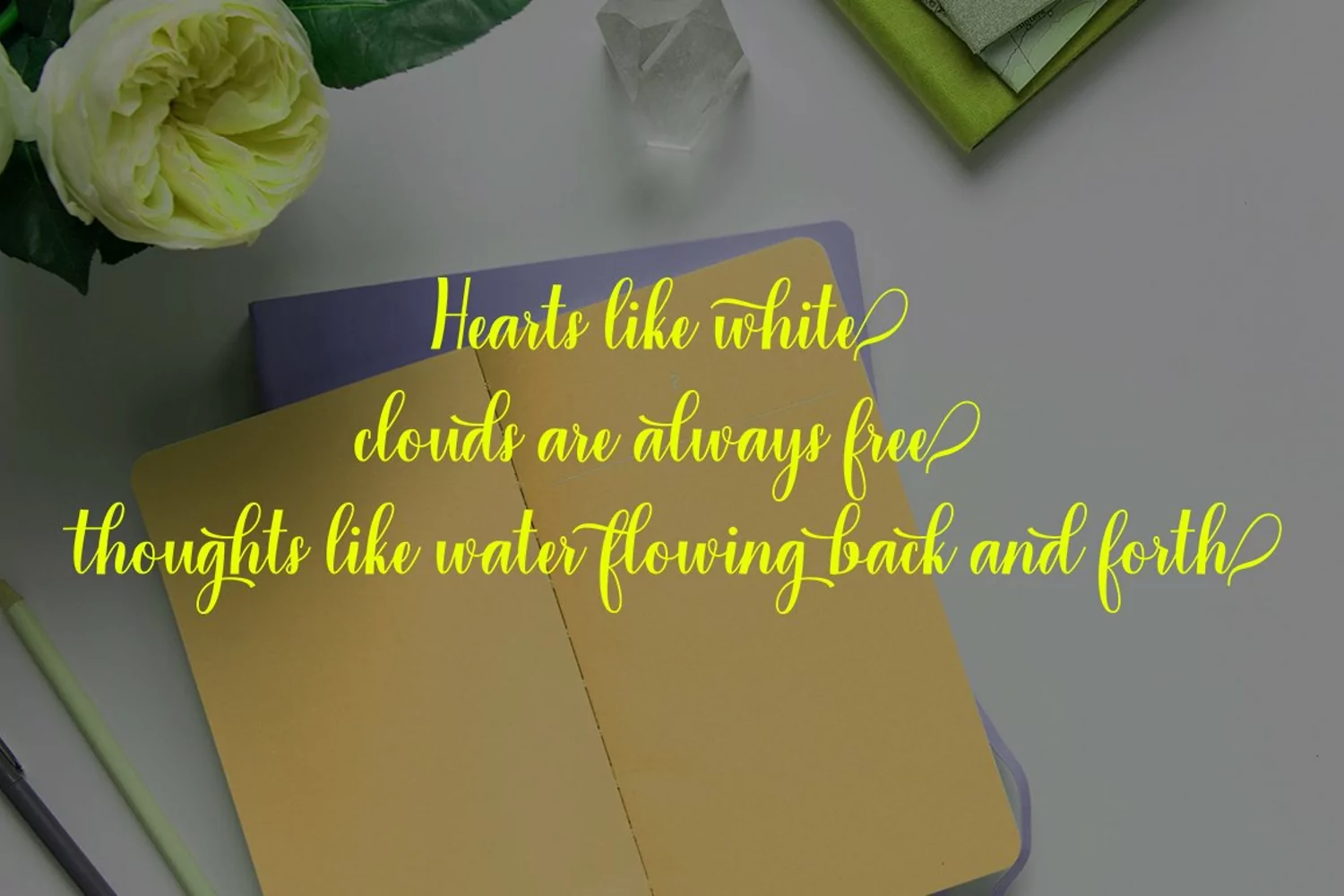
Sugako is a modern calligraphic typeface with several alternative ligatures. This font is created in a modern style with a very beautiful, elegant, very casual start and finish and fits your various design needs Perfect for logos, branding, titles, social media posts, advertisements, product packaging, product design, labels, photography, events specialty, magazines, web design, etc.